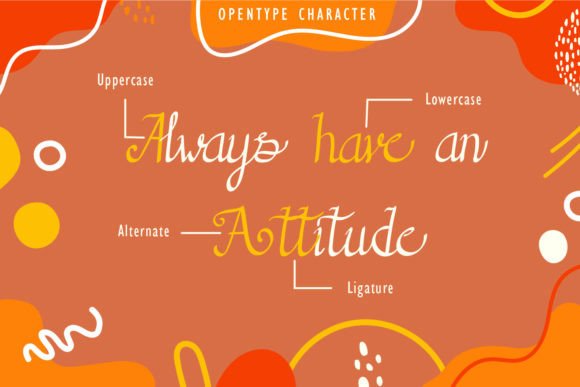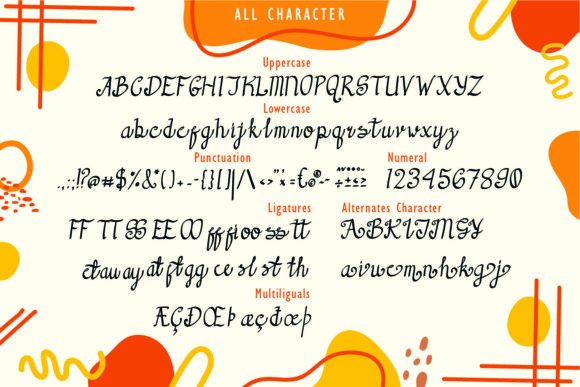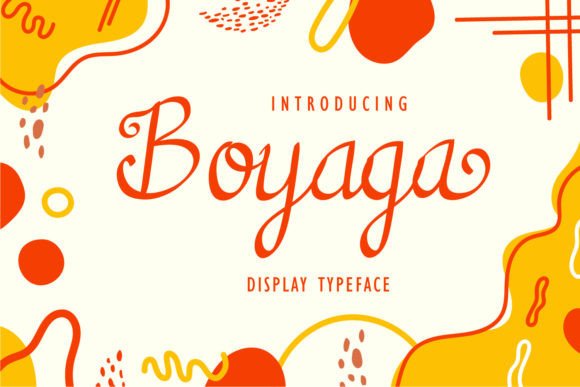
The Boyaga Font: A Fun and Quirky Handwritten Delight
I’ll never forget the time I was working on a project for a client who wanted a playful, handwritten font to match their brand’s fun and quirky personality. I scoured the internet for hours, trying out font after font, but nothing seemed quite right. That was until I stumbled upon the Boyaga font. With its unique charm and effortless vibe, it was the perfect fit for the project. In this article, I’ll share my experience with the Boyaga font, its features, and how to make the most of it in your designs.
A Personal Review: What I Love About Boyaga
So, what makes the Boyaga font so special? Here are a few things that I absolutely love:
- ✨ Fun and quirky personality: The Boyaga font has a unique, handwritten feel that’s perfect for creative projects.
- ✅ PUA encoded: The font is PUA encoded, which means you can access all the glyphs and ligatures with ease.
- 💫 Highly versatile: Boyaga can be used for a wide range of projects, from branding and packaging to social media graphics and crafts.
While the Boyaga font is amazing, there are a few small quirks to be aware of:
- ⚠️ Limited use in formal contexts: Due to its playful nature, Boyaga may not be the best choice for formal or professional projects.
- 🤔 Some characters may require adjustment: Depending on the context, some characters may require adjustment to ensure they fit perfectly with the rest of the text.
The Boyaga font was created by a talented designer who wanted to capture the essence of playful, handwritten typography. Inspired by the imperfections and quirks of handwriting, the designer crafted a font that’s both fun and functional. While the designer’s true identity remains a mystery, their passion for typography and creativity shines through in every detail of the Boyaga font.
| Q: What is the Boyaga font? | A: The Boyaga font is a fun and quirky handwritten font designed for creative projects. |
In conclusion, the Boyaga font is a fantastic addition to any designer’s toolkit. With its fun and quirky personality, PUA encoding, and versatility, it’s perfect for a wide range of creative projects. Whether you’re a designer, crafter, or hobbyist, the Boyaga font is sure to bring a touch of whimsy and charm to your designs.